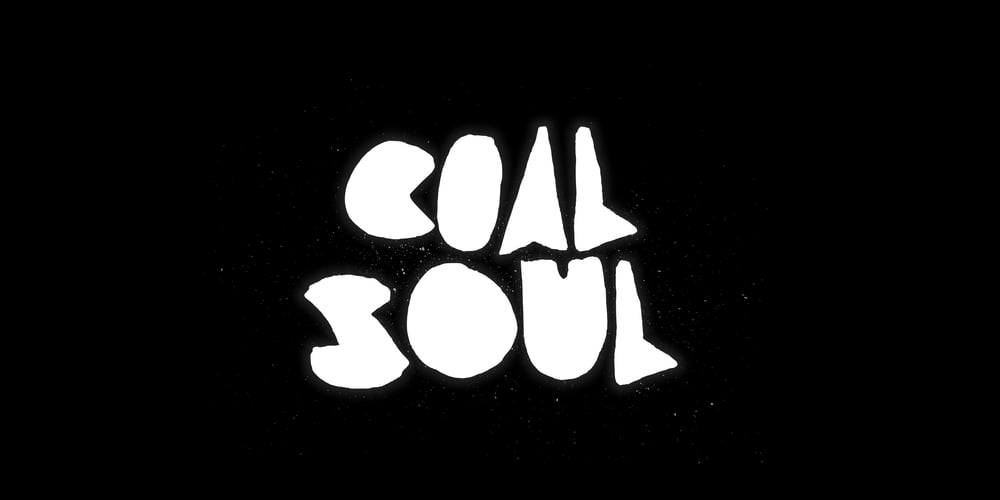
Coal Soul
Coal Soul font
Coal Soul Font Family was designed by Vladimir Tsagolov and published by LomoHiber. Coal Soul contains 6 styles and family package options. I’m so excited to present my Coal Soul typeface. It has been inspired by underground music video and hand drawn with Sharpie marker. Coal Soul has very unique minimalistic low poly letter form, 3 styles, and illustrations which will allow you to create really outstanding designs. It’s perfect to use in logos, posters, music covers, clothes prints and other stuff which needs crazy visual style. Coal Soul Features: Uppercase font Full set of alternates for each letter and number to create a more realistic look Bonus wide alternates for letters “B, C, D, E, F, G, O, Q R” Wide language support (Western European, Central European South Eastern European) Carefully tuned kerning Extra illustrations font If you have some issues or questions, please let me know: lhfonts@gmail.comHope you’ll enjoy using Coal Soul!